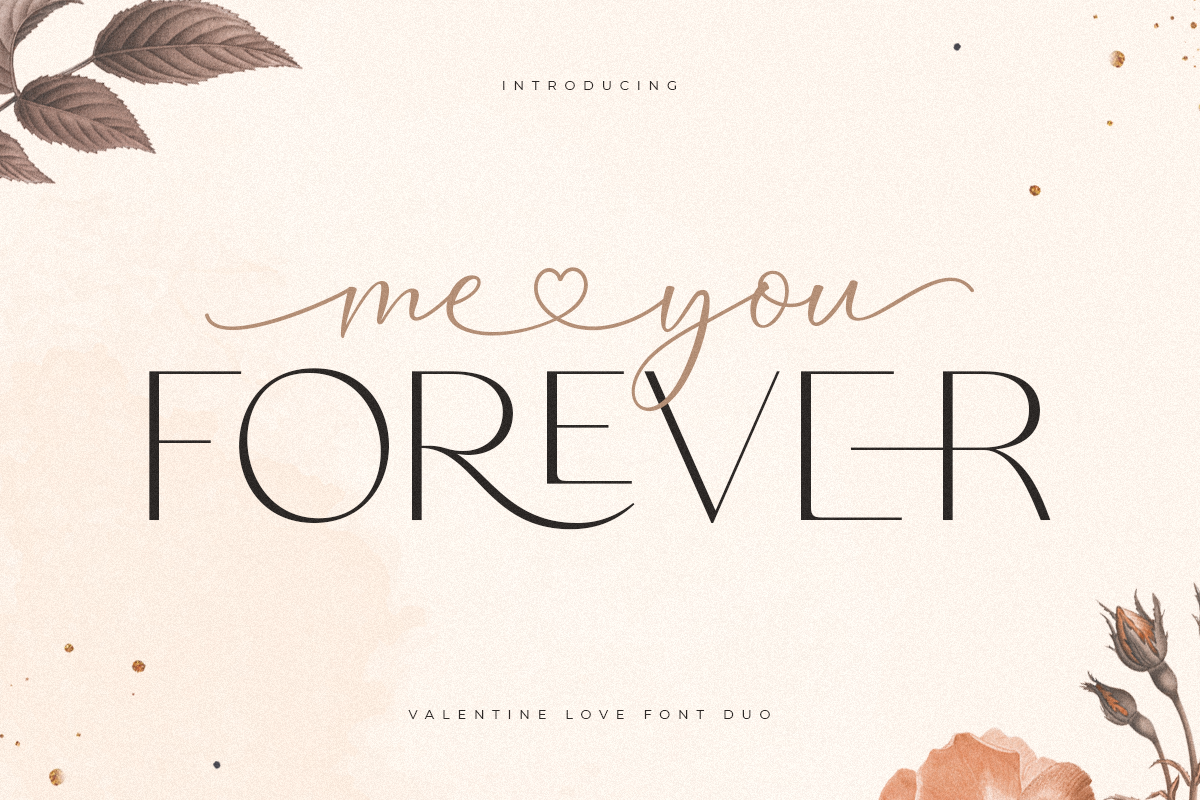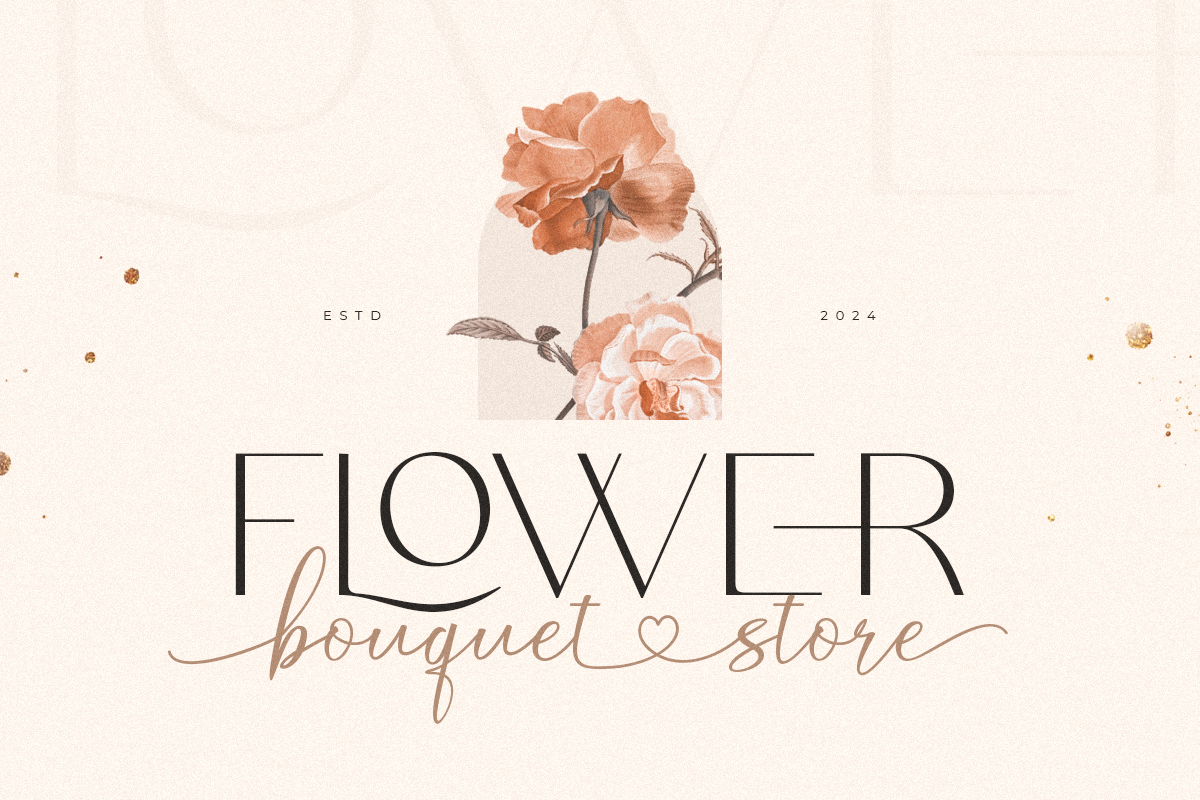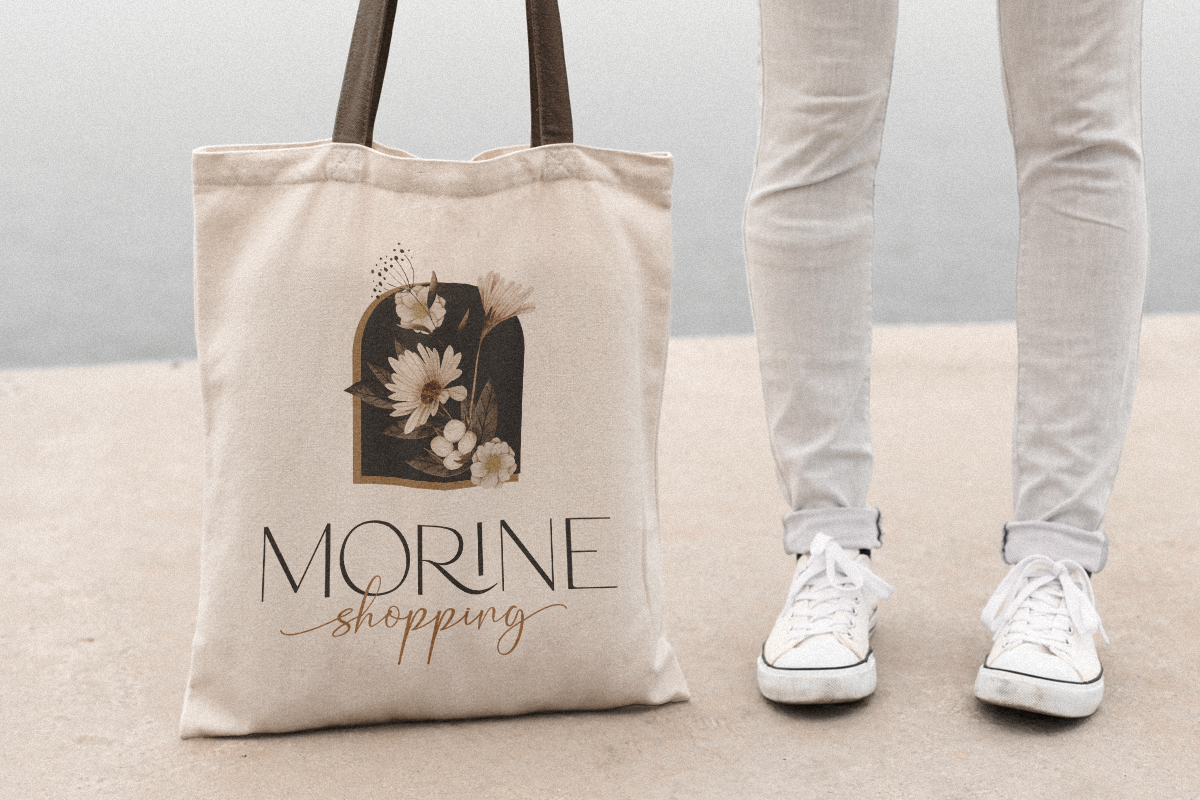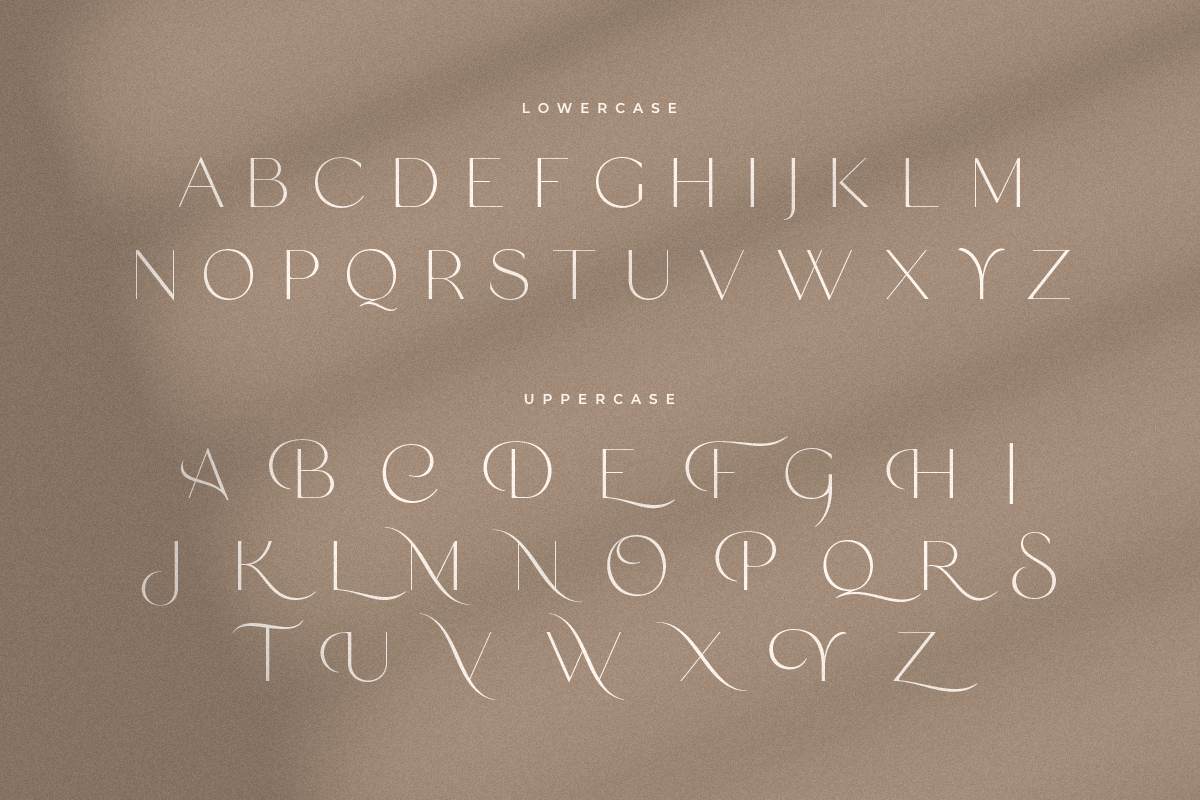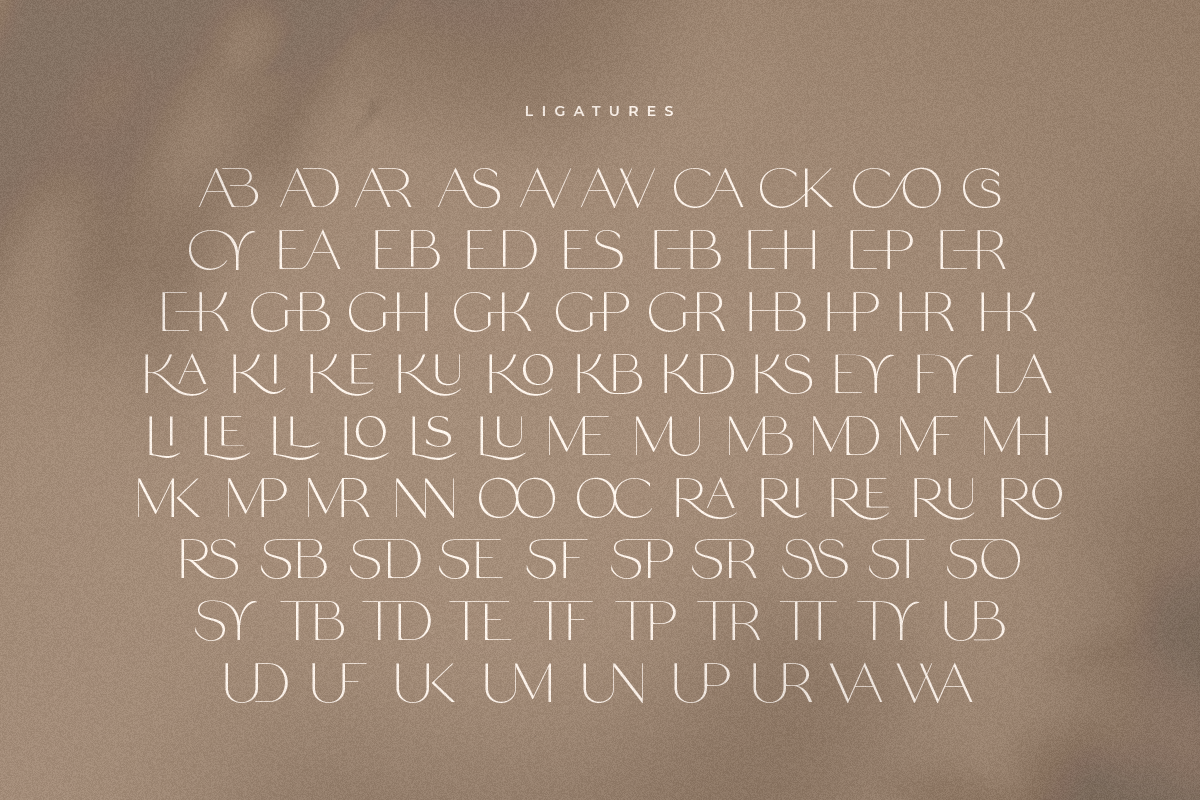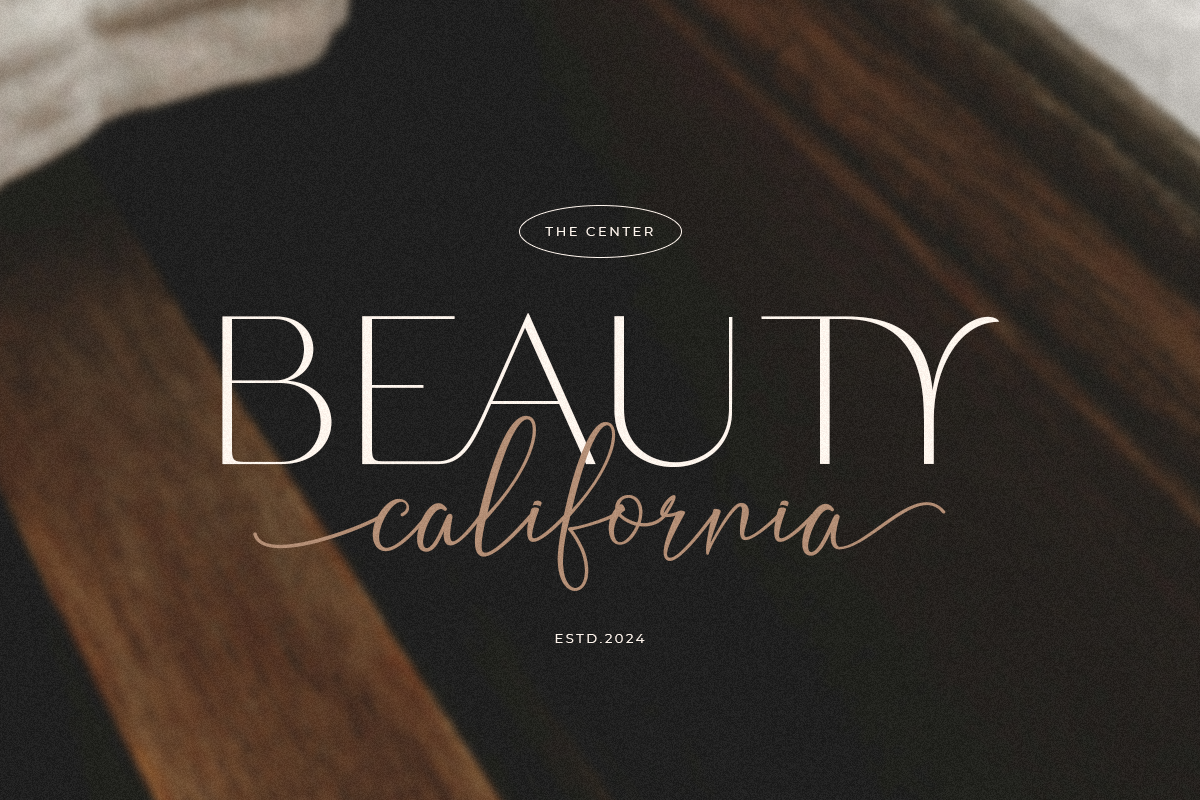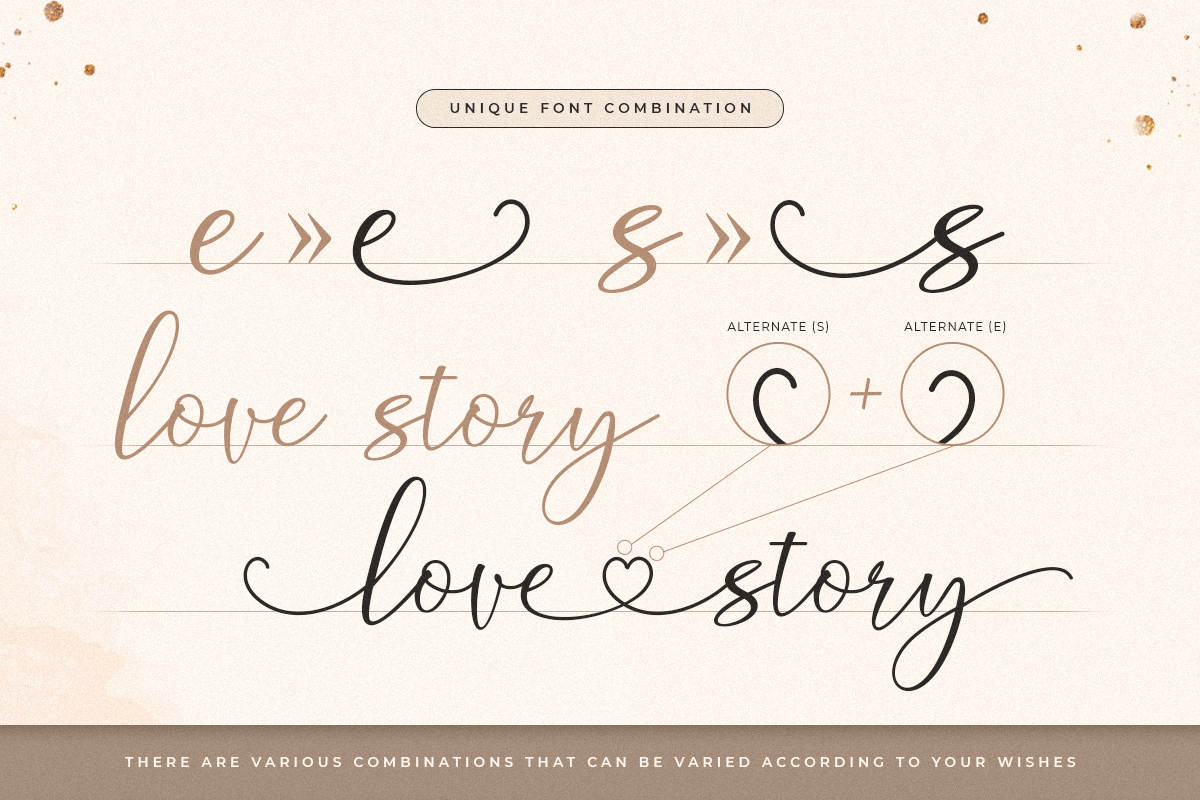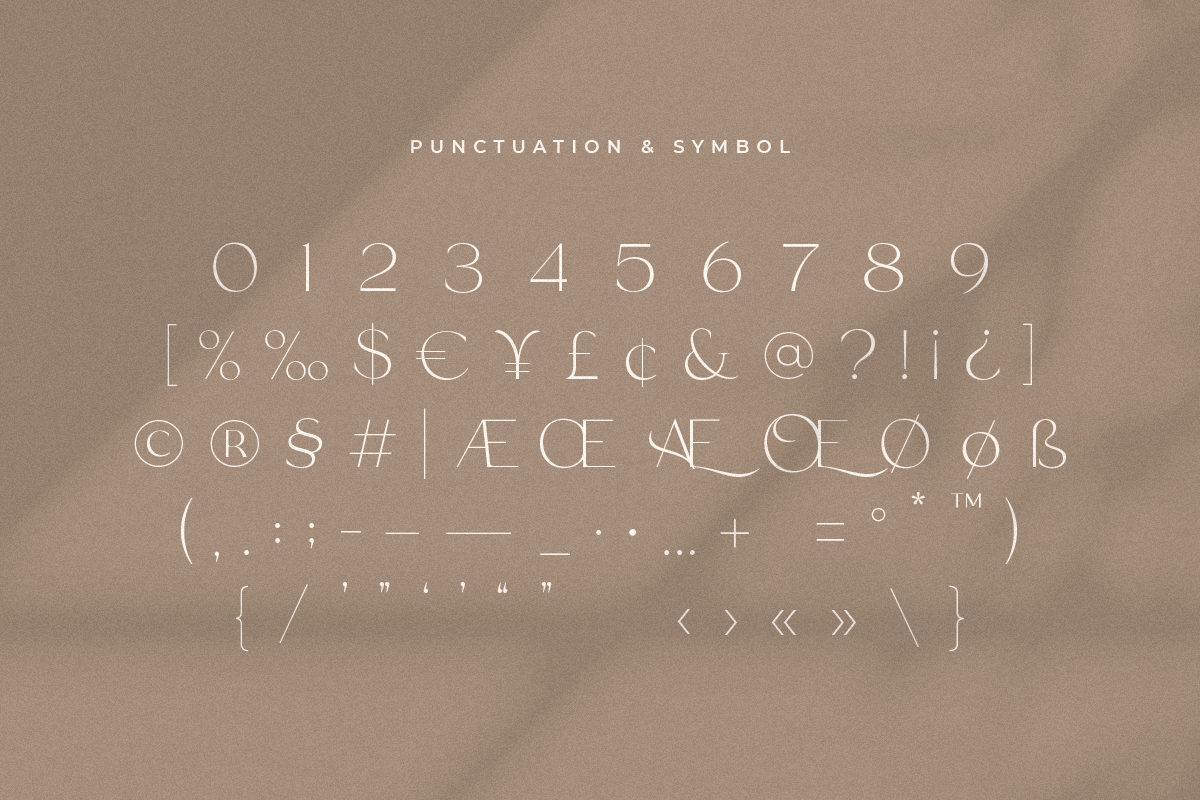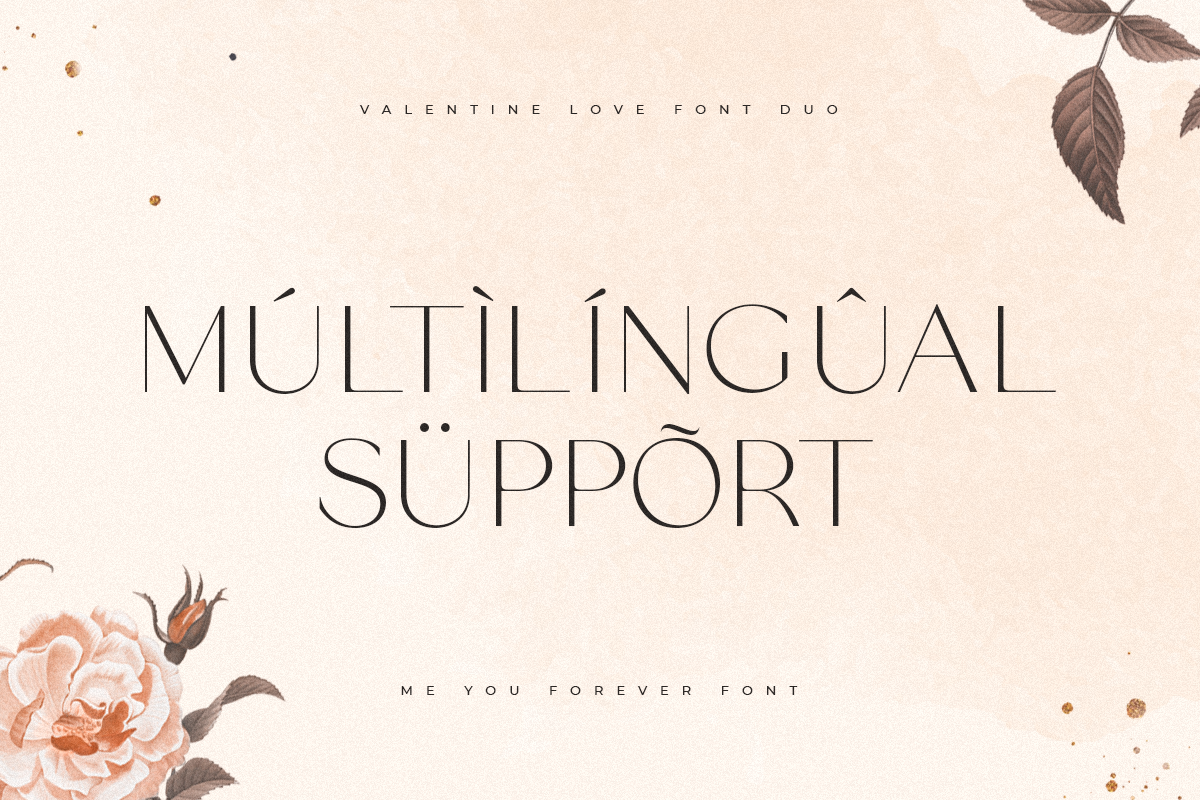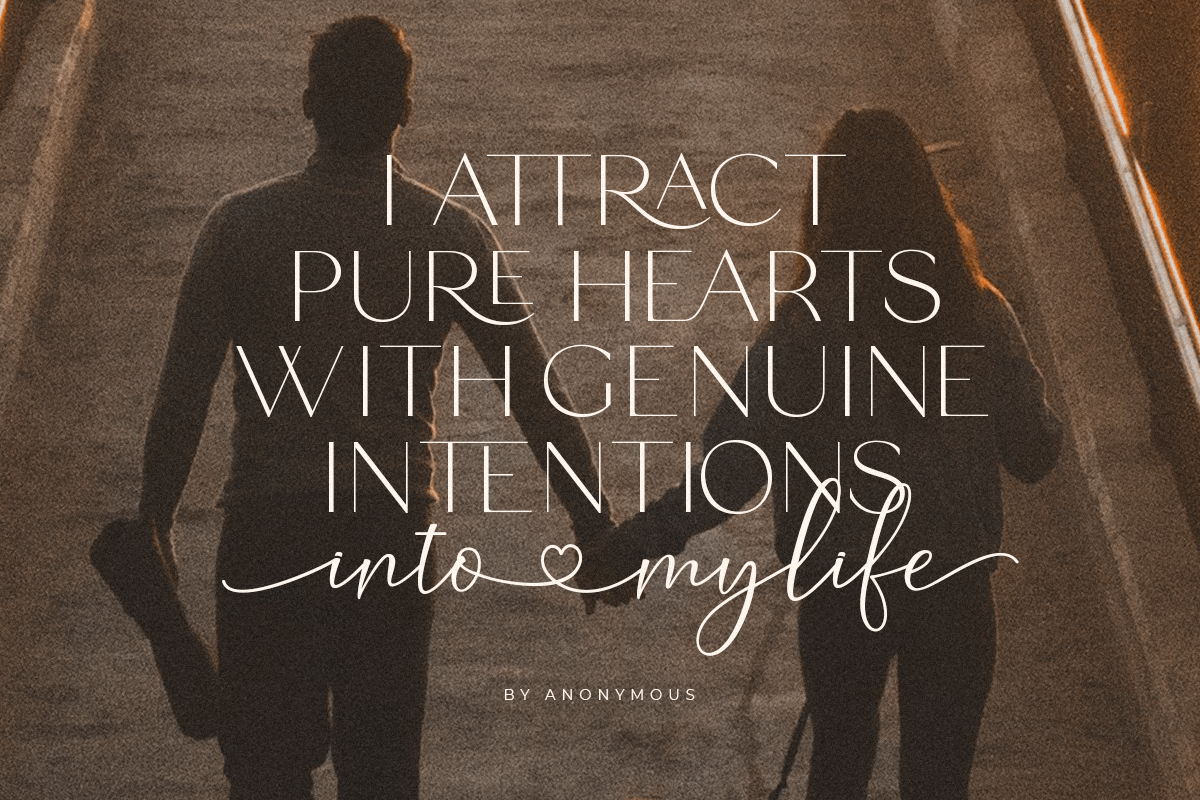
Me You Forever - Lovely Font Duo
Me ♡ You Forever Lovely Font Duo are unique and very elegant fonts that perfect for brand, logo design or valentine moments.
By any order from customer's need, as a graphic designer who works for a lot of companies, we often are requested to design any modern and classy, so we create this typeface in a unique style but with an elegant and modern shape. So, we try to brainstorming and create this font to make the idea is going out. This is perfect for BRANDING and LOGO DESIGN. You will get classy, elegant, and certainly unique logos with this font.
Me ♡ You Forever Lovely Font Duo are also included full set of:
- Ligature Sans Serif and Beauty Script pair font
- Unique Ligatures and Swash as Decorative part
- Standard Uppercase and Lowercase letters
- Support for any multilingual symbols
- Ready with numerals & punctuations